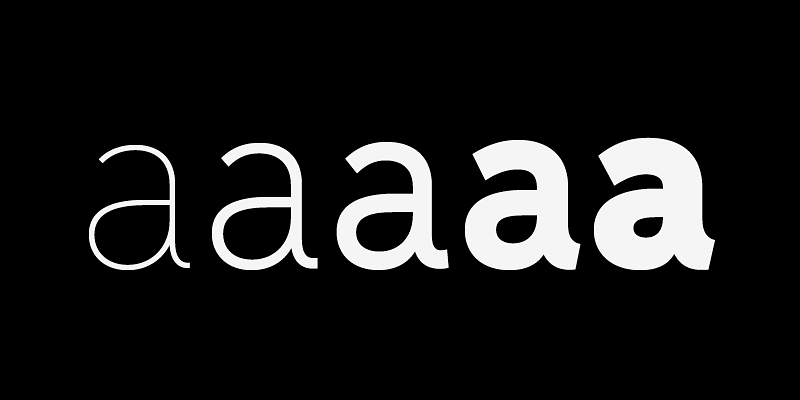
Menca Font Free Download
Menca Font Free Download is a modern and stylish sans-serif typeface with a clean and minimalist design. It features smooth lines and geometric shapes, making it perfect for contemporary branding, logo design, editorial layouts, and web design. Menca offers a balance between sleek aesthetics and excellent legibility, making it suitable for both print and digital projects.
The font’s versatility allows it to be used for a wide range of applications, from headlines and body text to advertising and product packaging. Whether you're working on corporate branding or creative projects, Menca will add a modern touch to your designs.